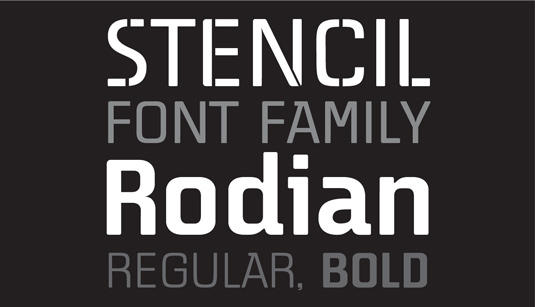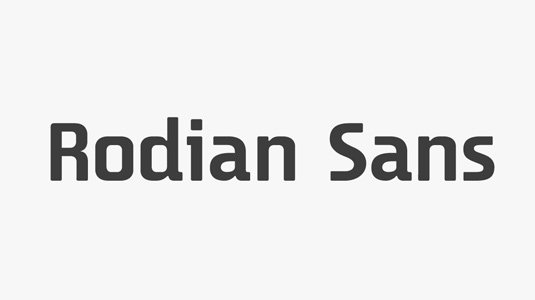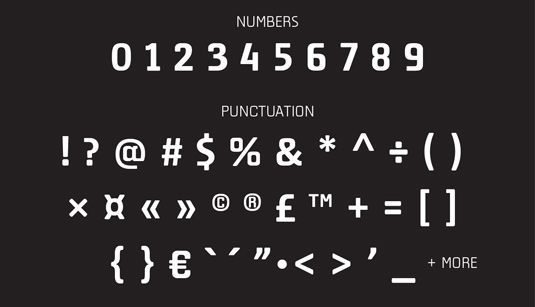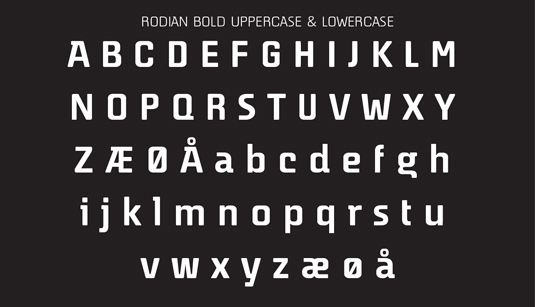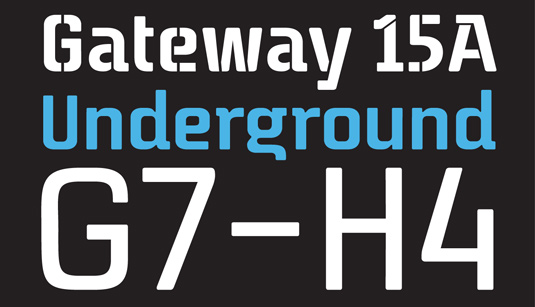
Font of the day: Rodian Sans
Rodian Sans by Jan-Christian Bruun
Rodian is a new, rounded font typefamily, created by designer Jan-Christian Bruun. "The font is a new re-designed version of one of my old fonts Rodian," Bruun comments on Behance. "I picked it up for a new consideration, and drew a more modern font. I have received many inspirations from the city, the american subway, and the clean lines of the many fonts that you find around the inner city. The idea was to create a font that expresses the soft and still a little raw form."